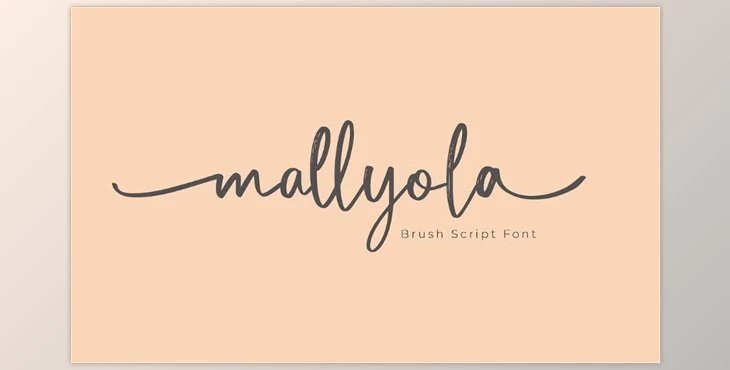
Mallyola Brush Script Font:
Mallyola Brush Script Font: a bold and modern typeface full of character, inspired by handbrush lettering. Its creativity and distinctive letterforms add beauty and elevate branding, packaging, invitations among others and amd enhances visual impact.
Some great features of Mallyola Brush Script Font:
- Creative Flexibility: Provides rich typographic scaling through ligatures and stylistic alternates including swashes.
- Global Reach: Supports more languages enhancing its versatility.
- Creative Style: Strong artistic bold brush script style for striking designs.
- Global Reach: Supports more languages enhancing its versatility.
- Design Impact: Increased value with contemporary design changes.